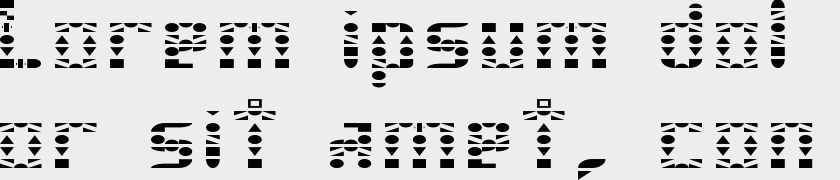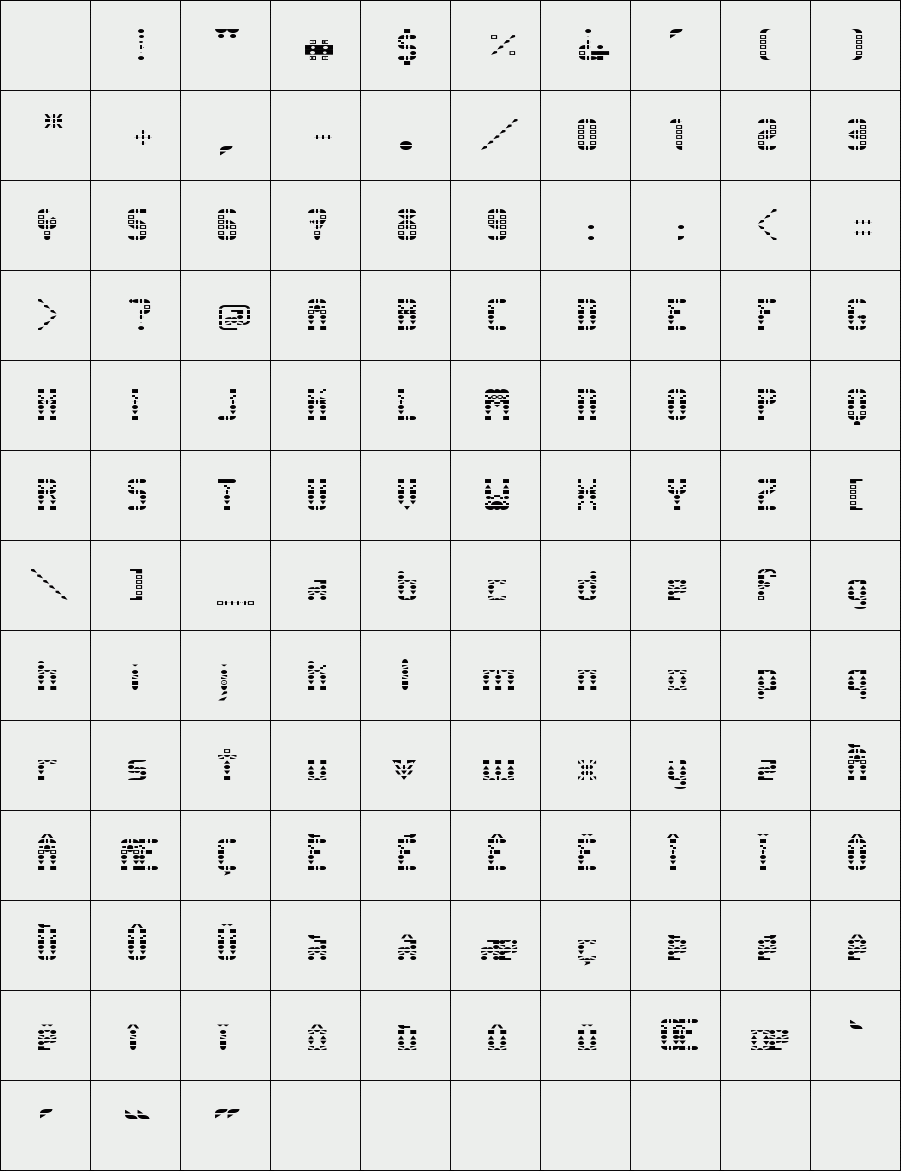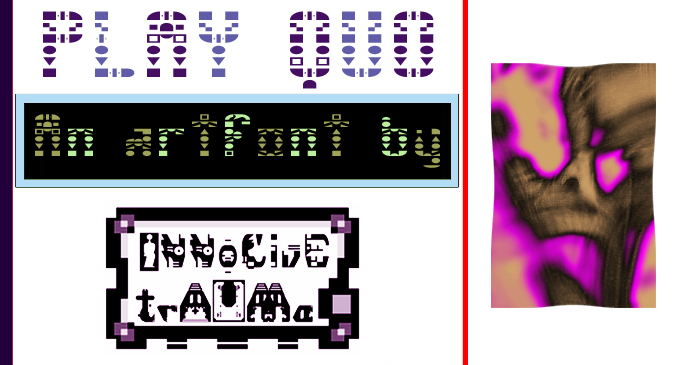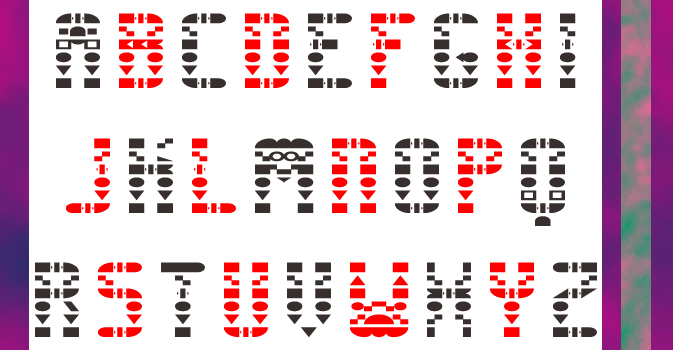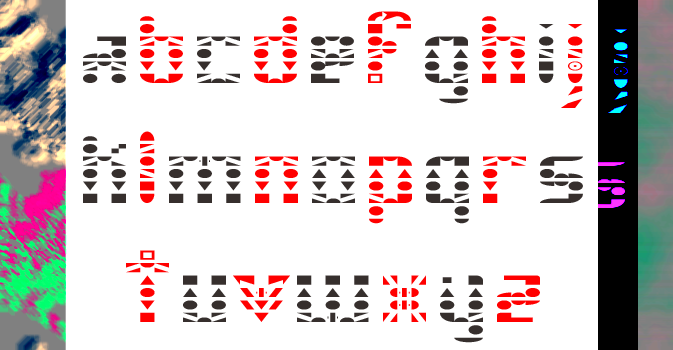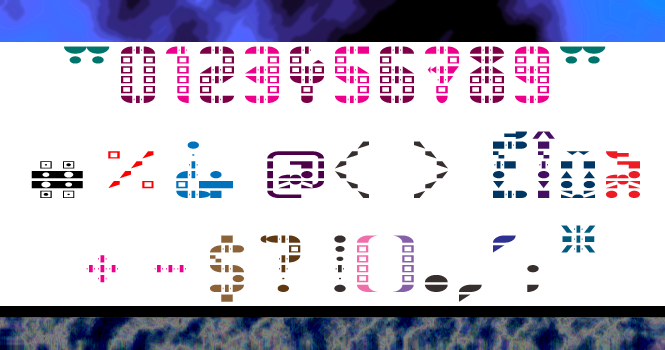
trAUMa 65 / Play Quo
"Play Quo", like all the "trAUMa" series, works at the frontier between Art & Type Design, Figuration & Abstraction, each font is a comprehensive world in which every glyph is a "living" entity. But put together they can produce your messages in the most accurate way.